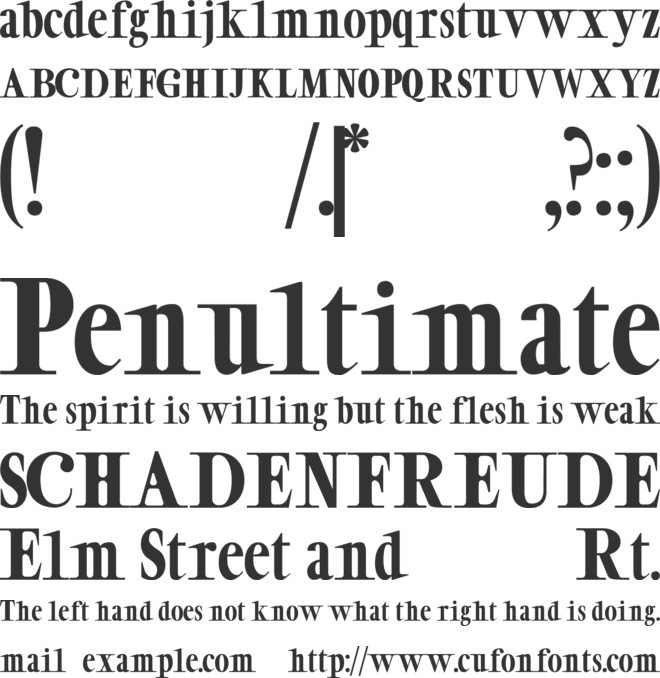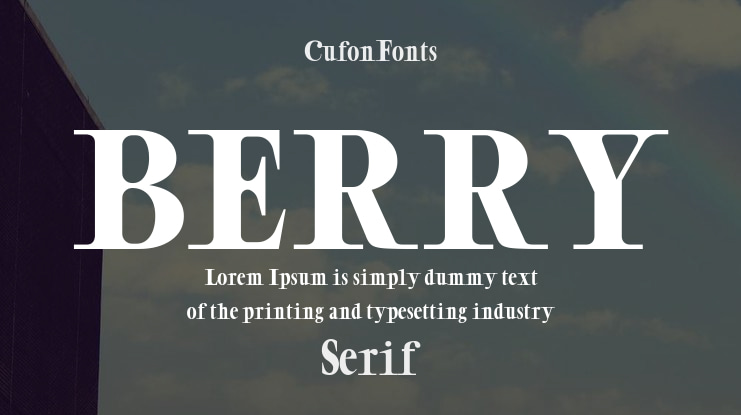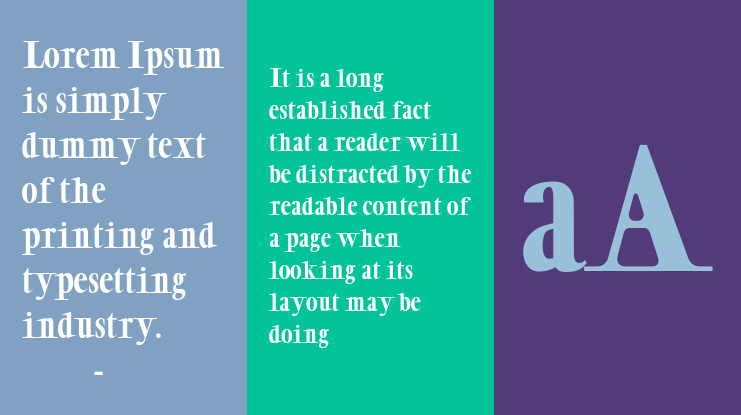
BERRY Font
🎨 Font Name: BERRY by Minimalist Art Studio
🎨 Font Description: BERRY is a luxurious serif with multilingual support and high contrast, perfect for fashion branding, packaging, and premium editorial design.
βœ” Complete Latin set + multilingual diacritics
βœ” Alternates, stylistic sets & ligatures
βœ” Numbers, small caps, and extended punctuation
βœ” Bonus italics and family styles